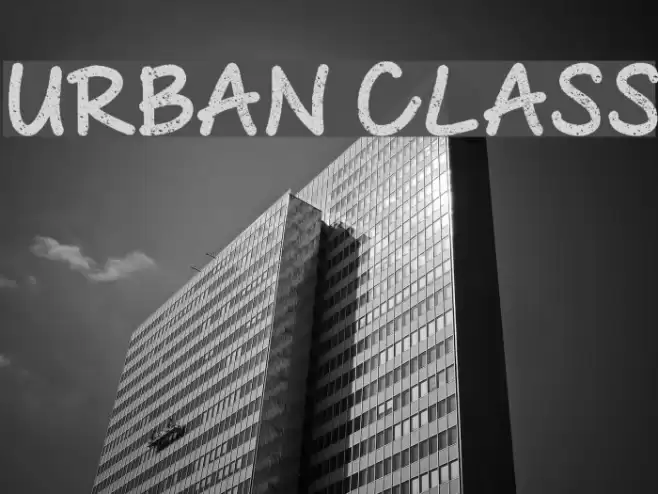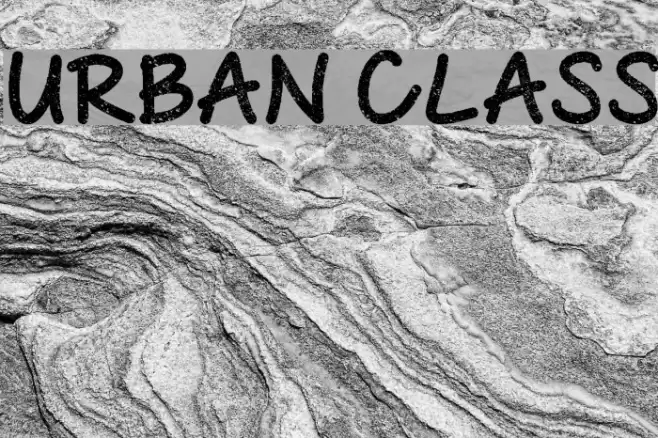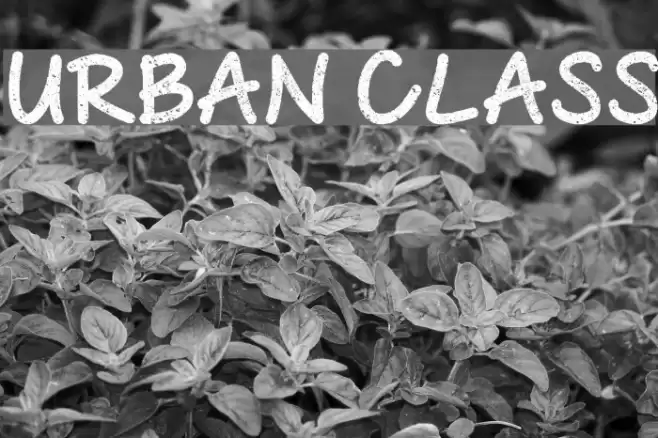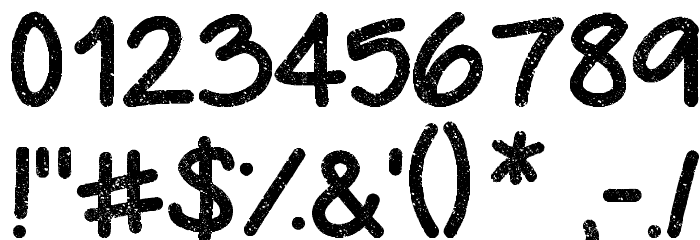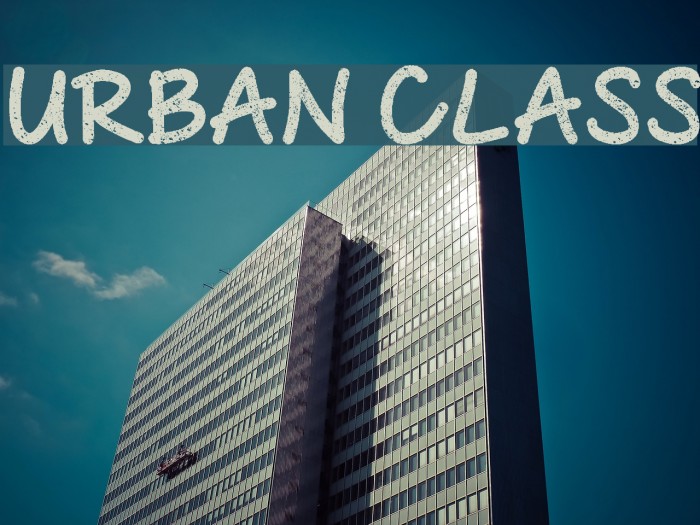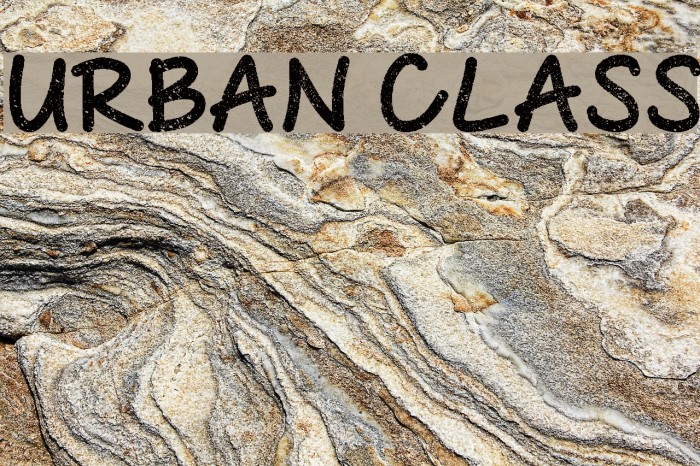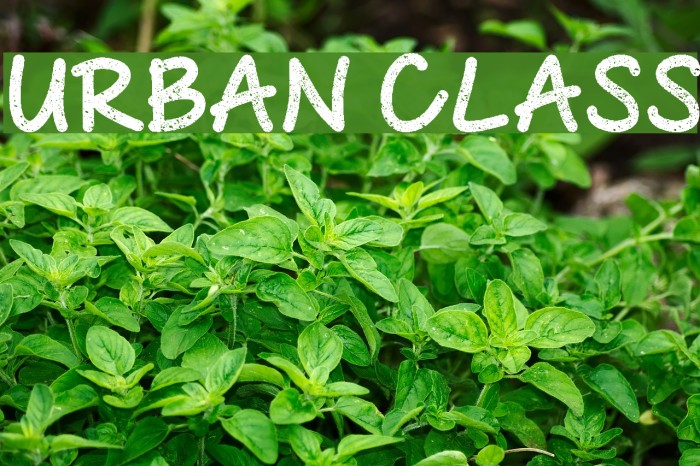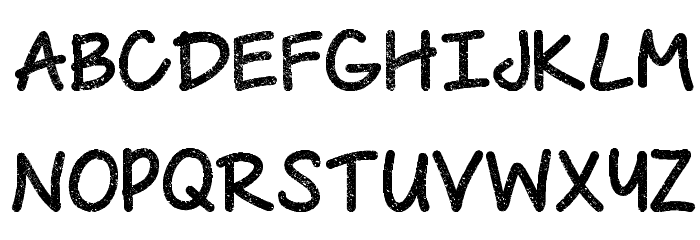
Urban Class Font
Urban Class Description
This font features a bold, handwritten style with a textured, urban feel. The letters are slightly irregular, giving it a casual and dynamic appearance. The uppercase and lowercase characters maintain a consistent style, with rounded edges and a playful, energetic vibe. The numbers and special characters follow the same aesthetic, making the font versatile for various uses. The texture adds a gritty, street-like quality, enhancing its appeal for modern, edgy designs.
A bold, textured handwritten font with an urban, dynamic style from Uncategorized fonts.
- Proposed Projects: Ideal for streetwear branding, music album covers, graffiti art, and urban-themed posters.
- Overall Style: Urban, Modern, Casual
- Use Case: Logos, Posters, Branding